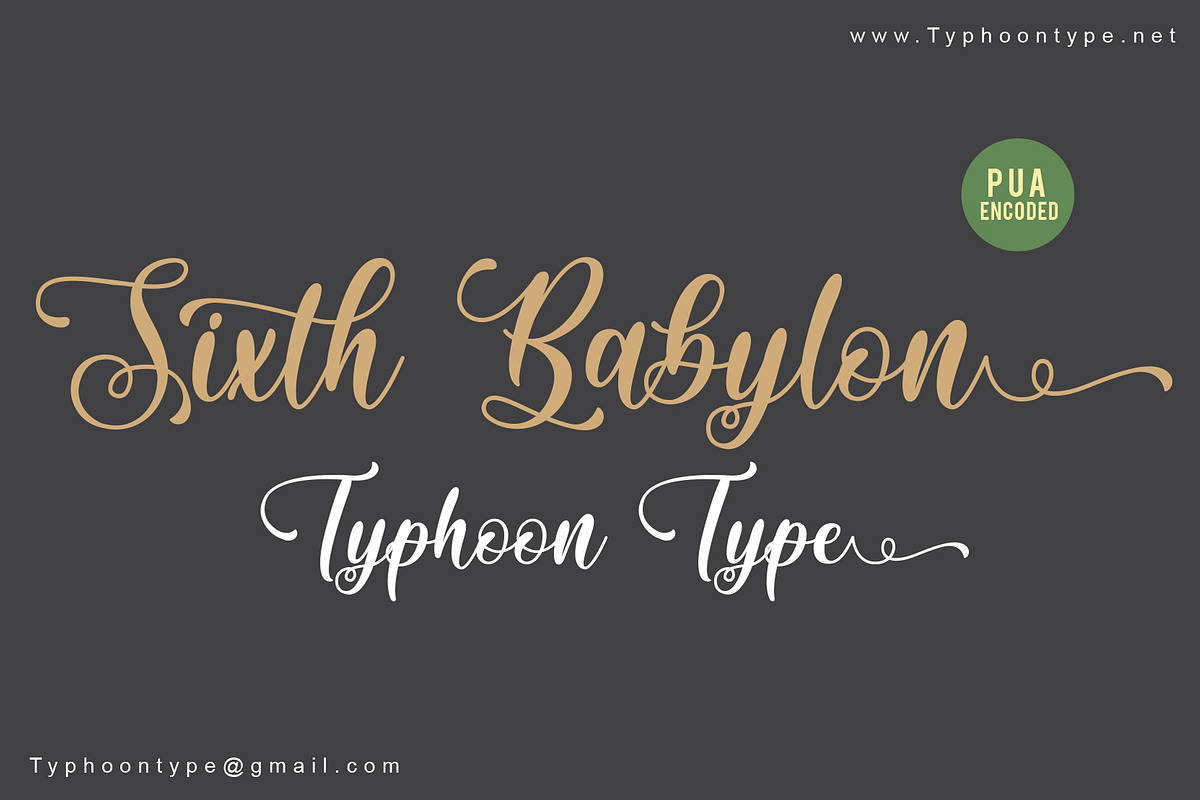
Sixth Babylon font
Sixth Babylon This font perfect for logos, name tag, advertising, product packaging, clothing, social media & greeting cards.
Why Sixth Babylon font is worth a look
Sixth Babylon font by TyphoonStudio fits naturally into Branding, posters, packaging, typography.